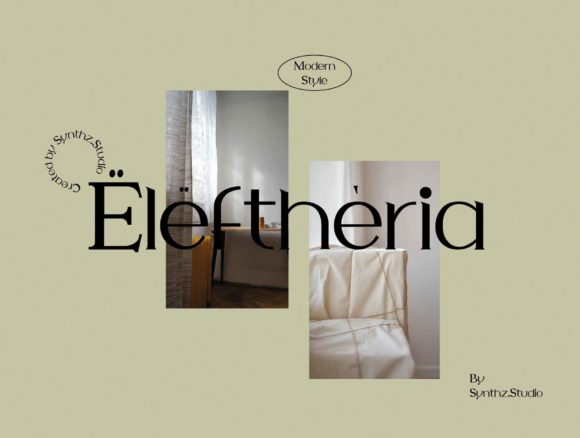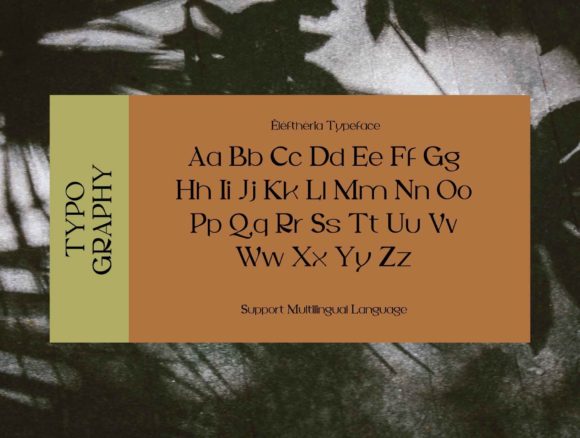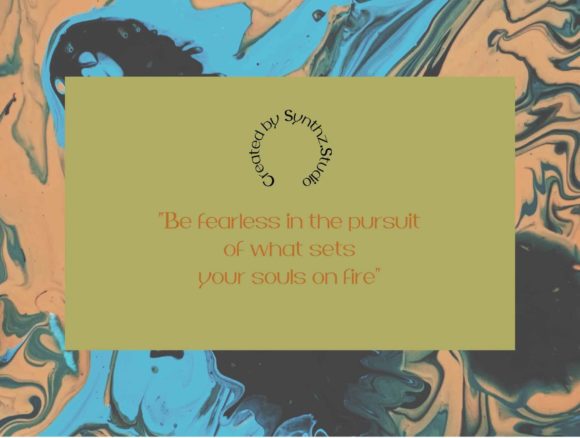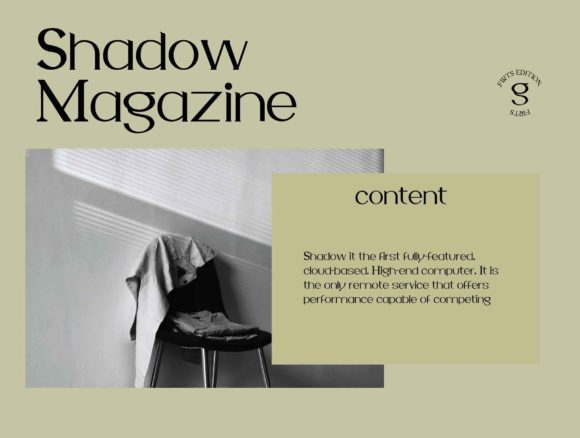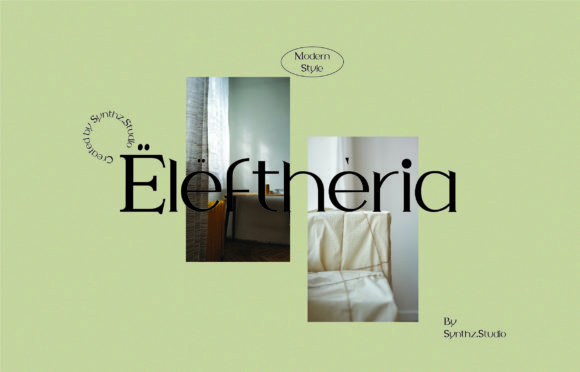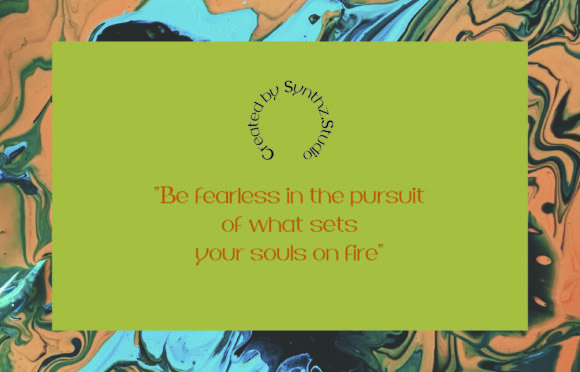
Introducing Eleftheria Font: Elevate Your Designs with Elegance and Sophistication
Are you a designer or craft looking for a font that exudes elegance and chic? Look no further than Eleftheria Font. This stunning serif font is perfect for creating titles for magazines, product promotions, and even feature film productions. With its sophisticated and refined aesthetic, Eleftheria Font is sure to elevate your designs and leave a lasting impression.
The Characteristics of Eleftheria Font
Eleftheria Font is a beautifully crafted serif font that boasts a range of characteristics that make it perfect for high-end designs. Some of its key features include:
- Elegant and Refined Aesthetic: Eleftheria Font has a sophisticated and refined aesthetic that is perfect for creating high-end designs. Its elegant lines and curves make it ideal for use in luxury brands, magazines, and product promotions.
- Smooth and Consistent Lines: The font features smooth and consistent lines that give it a polished and professional look. This makes it perfect for use in titles, headings, and other design elements where clarity and legibility are essential.
- Versatile and Adaptable: Eleftheria Font is incredibly versatile and adaptable, making it suitable for use in a wide range of design applications. Whether you’re creating a title sequence for a feature film or designing a logo for a luxury brand, Eleftheria Font is the perfect choice.
Uses of Eleftheria Font
Eleftheria Font is a highly versatile font that can be used in a wide range of design applications. Some of the most popular uses of Eleftheria Font include:
- Magazine Titles: Eleftheria Font is perfect for creating eye-catching titles for magazines, newspapers, and other publications. Its elegant and refined aesthetic makes it ideal for use in luxury brands and high-end designs.
- Product Promotions: The font is also great for use in product promotions, such as advertising campaigns, brochures, and flyers. Its sophisticated and polished look makes it perfect for showcasing high-end products and services.
- Feature Film Productions: Eleftheria Font can be used in feature film productions to create stunning title sequences, credits, and other visual elements. Its elegant and refined aesthetic makes it perfect for use in high-end film productions.
Benefits of Using Eleftheria Font
There are many benefits to using Eleftheria Font in your designs. Some of the most significant advantages include:
- Increased Elegance and Sophistication: Eleftheria Font adds an instant touch of elegance and sophistication to your designs. Its refined aesthetic makes it perfect for use in high-end designs and luxury brands.
- Improved Legibility: The font features smooth and consistent lines that make it easy to read and understand. This makes it perfect for use in titles, headings, and other design elements where clarity and legibility are essential.
- Versatility and Adaptability: Eleftheria Font is incredibly versatile and adaptable, making it suitable for use in a wide range of design applications.
Tips for Using Eleftheria Font
To get the most out of Eleftheria Font, here are a few tips to keep in mind:
- Use it in Large Sizes: Eleftheria Font looks stunning in large sizes, making it perfect for use in titles, headings, and other design elements.
- Pair it with Other Fonts: The font pairs well with other fonts, making it easy to create visually appealing and harmonious designs.
- Experiment with Different Colors: Eleftheria Font looks great in a range of colors, so don’t be afraid to experiment and find the perfect color to match your brand or design.
In conclusion, Eleftheria Font is a stunning serif font that is perfect for designers and crafters looking to add a touch of elegance and sophistication to their designs. Its refined aesthetic, smooth and consistent lines, and versatility make it suitable for use in a wide range of design applications. Whether you’re creating a title sequence for a feature film or designing a logo for a luxury brand, Eleftheria Font is the perfect choice.